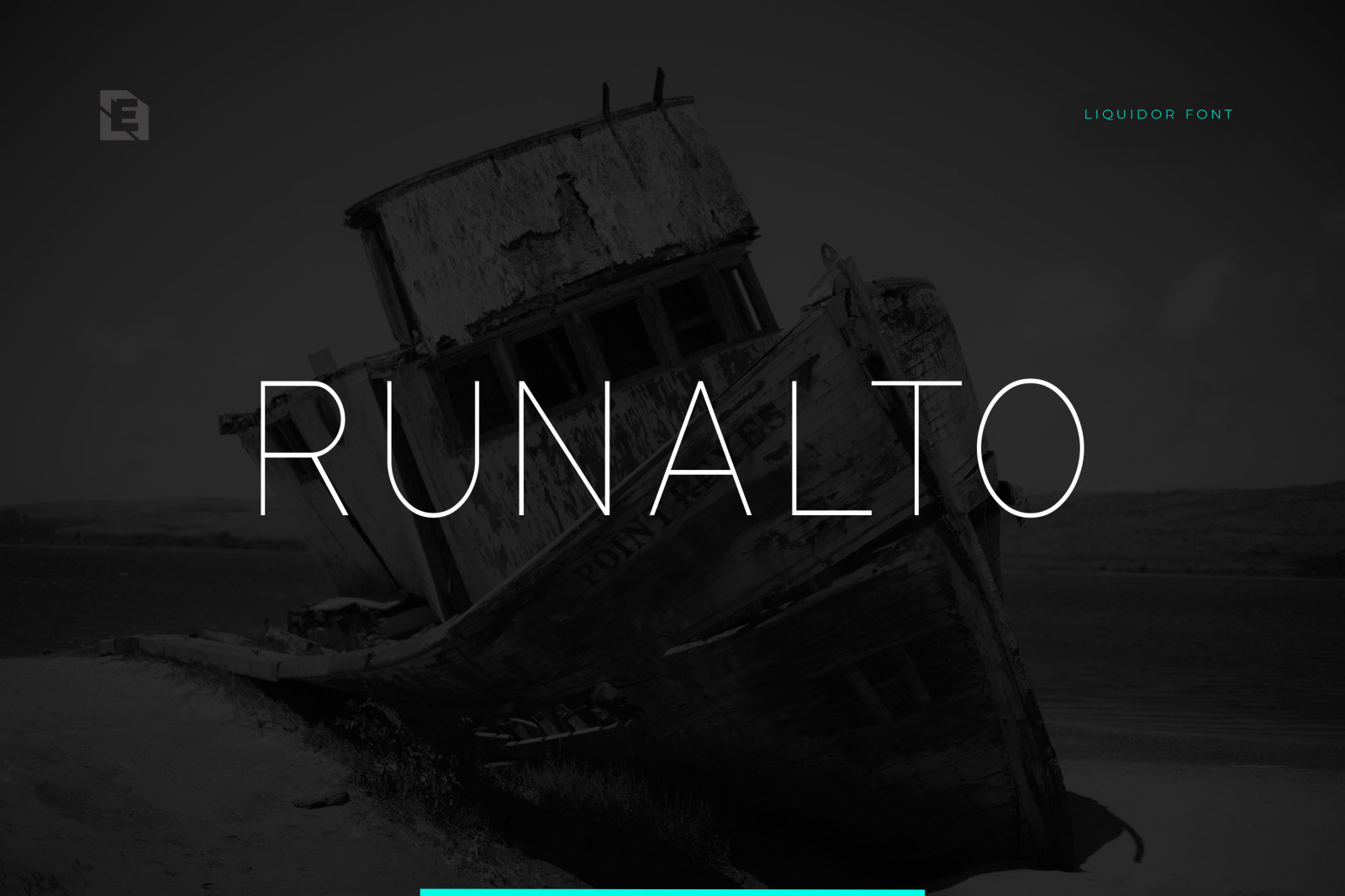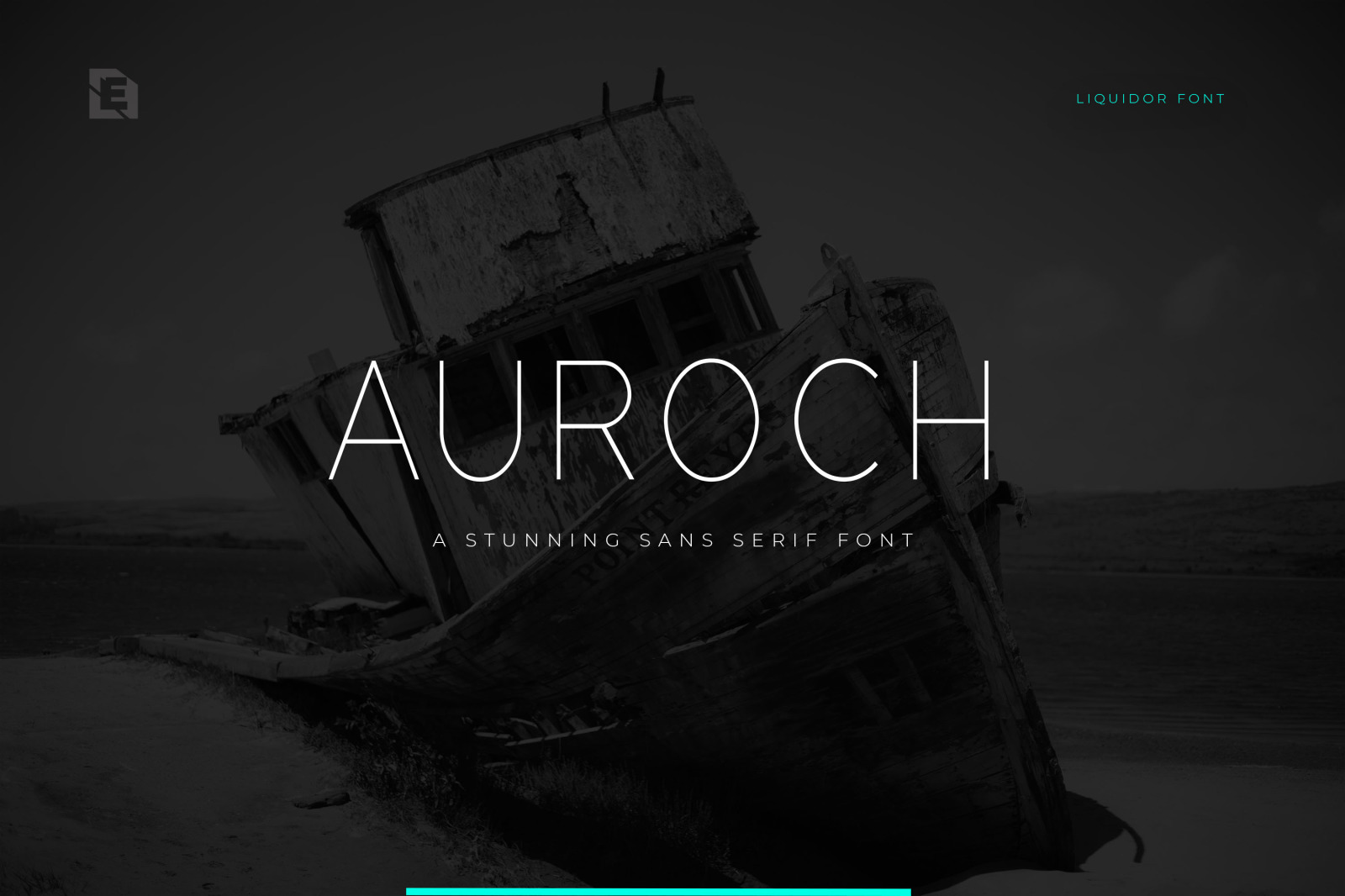
Liquidor Font
Liquidor is a minimal and thin lettered sans serif font. This Font has an elegant and beautiful appearance in any background. This font Is perfect for branding, logos, invitation, master heads, and more.